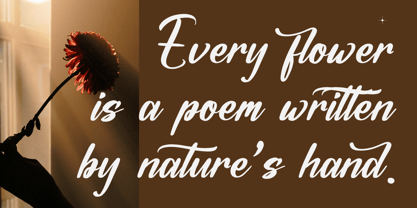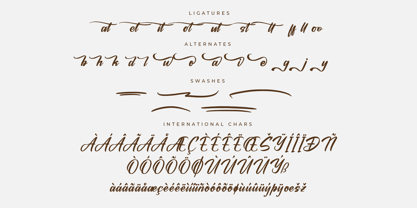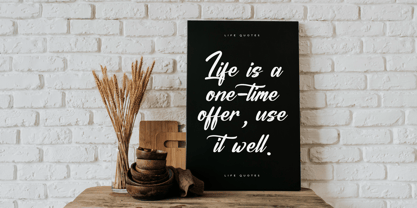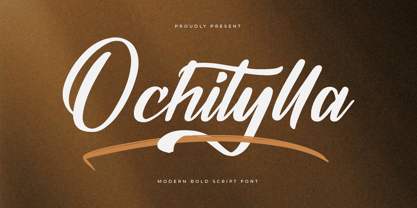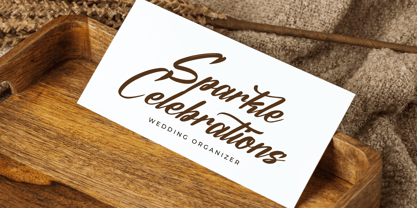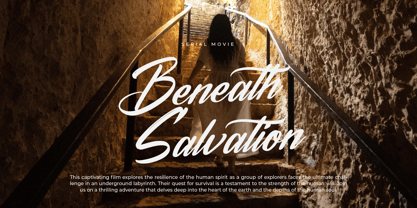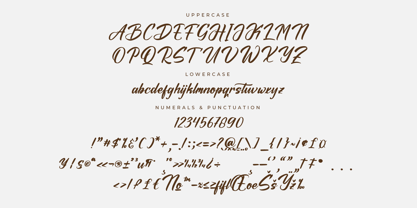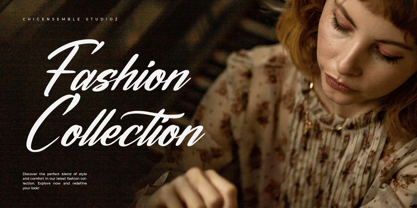
Ochitylla
von Letterena Studios
Die Schriftfamilie Ochitylla wurde von Heru Utama Putra entworfen und von Letterena Studios veröffentlicht. Ochitylla enthält 2 Stile und Familienpaketoptionen.
Ochitylla is a stylish and neat handwritten script, exuding sophistication and charm. Its graceful strokes and balanced curves convey a sense of elegance and refinement, making it perfect for invitations, branding, and decorative projects. With its timeless appeal, Ochitylla adds a touch of class to any design endeavor.
Designer: Heru Utama Putra
Herausgeber: Letterena Studios
Foundry: Letterena Studios